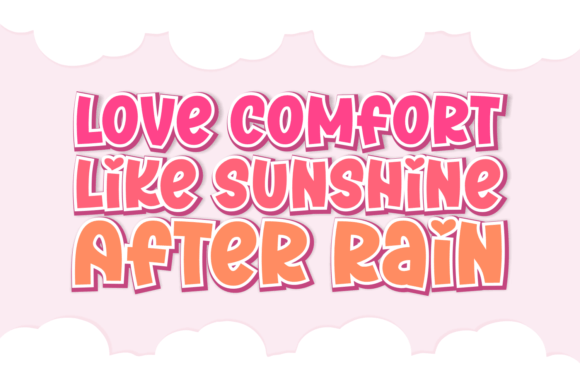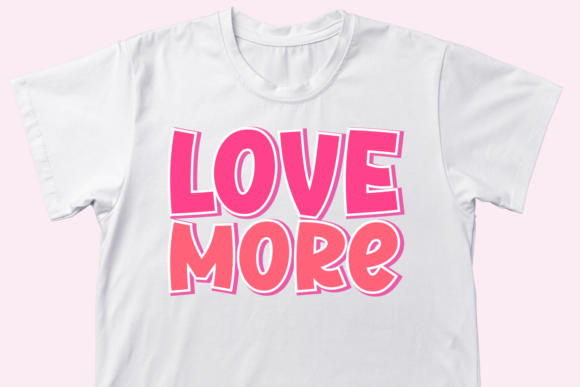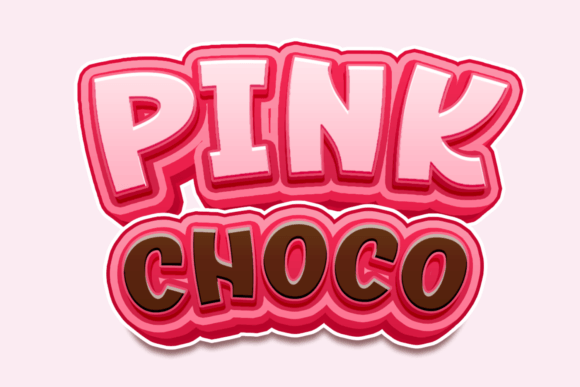
The Magical World of Always Pink Font
I’ll never forget the design project that led me to discover Always Pink Font. I was working on a whimsical branding campaign for a new children’s bookstore, and I was struggling to find the perfect font to capture the playful, yet sophisticated vibe I was going for. That’s when I stumbled upon Always Pink, and it was love at first sight! ✨
This delightfully quirky display font instantly infused my design with a warm, charming glow that perfectly matched the bookstore’s personality. I knew right then and there that I had to share my discovery with fellow designers, crafters, and creative hobbyists.
An Honest Review of Always Pink Font
- ✨ Unique and quirky personality that adds a touch of whimsy to any design
- ✅ Effortless elegance and sophistication, perfect for display text
- 💫 Beautifully crafted with attention to detail, making it a joy to work with
- 🎉 Extensive range of OpenType features, glyphs, and stylistic alternates to experiment with
- 🤔 May not be suitable for body text or small font sizes due to its bold, display nature
- ⚠️ Limited use of uppercase letters, which can make it less versatile for certain designs
The Designer Inspiration Behind Always Pink
Always Pink Font was created by a talented designer who drew inspiration from the whimsical world of childhood imagination. With a passion for crafting unique and playful typography, this designer aimed to create a font that would bring a touch of magic to any design. 💫
Through a combination of creative experimentation and meticulous attention to detail, Always Pink was born – a font that embodies the perfect blend of quirkiness, elegance, and charm.
Q: What type of projects is Always Pink Font best suited for?
A: Always Pink Font is ideal for creative projects that require a touch of whimsy and charm, such as branding, packaging, posters, and social media graphics.
Q: Is Always Pink Font available in different weights or styles?
A: Currently, Always Pink Font is available in a single weight. However, the designer may release additional weights or styles in the future.